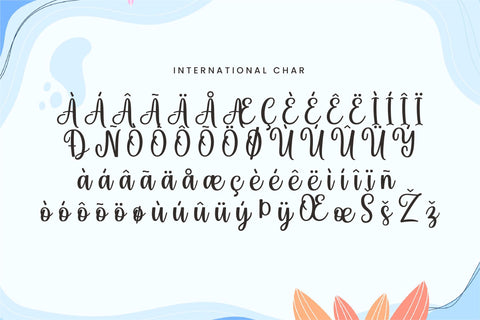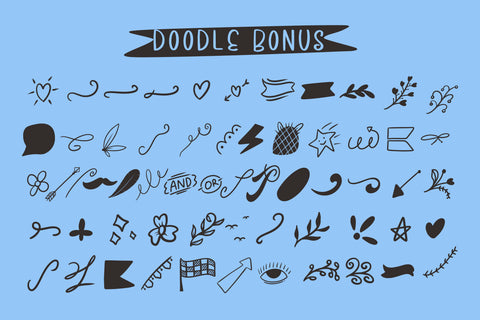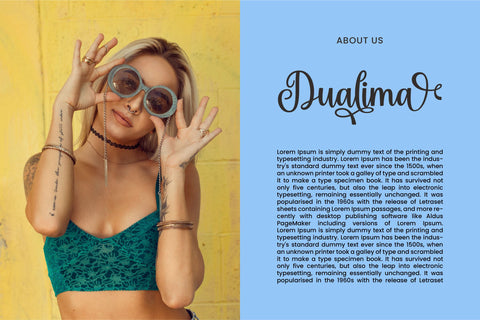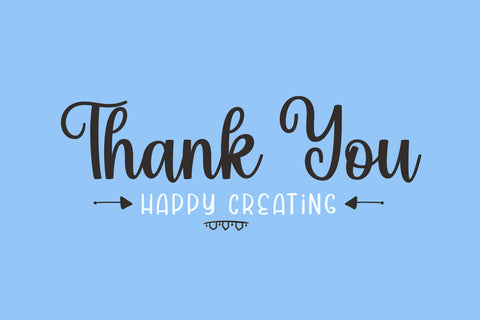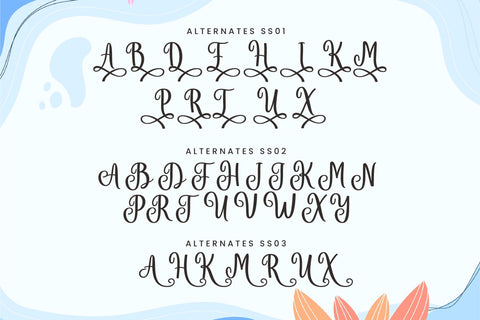
Dualima - Elegant and Flowing Font Trio
Dualima is a delicate, elegant, and flowing font trio (handwritten, sans serif, and dingbats.) It has beautiful and well-balanced characters and as a result, it matches a wide pool of designs. Add it to your most creative ideas and notice how it makes them come alive!
Dualima is PUA encoded, which means you can access all of the amazing glyphs and ligatures with ease!